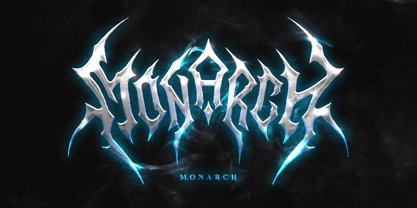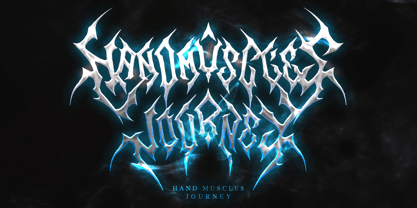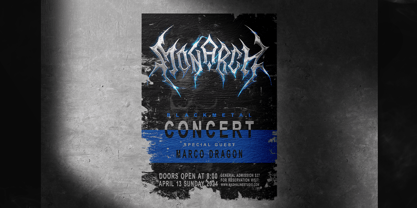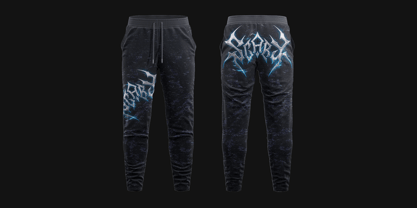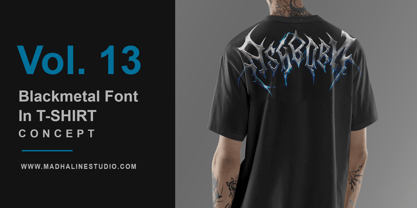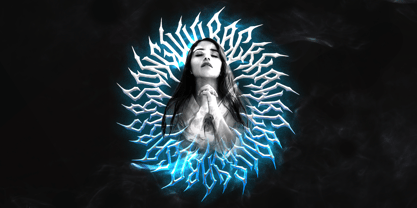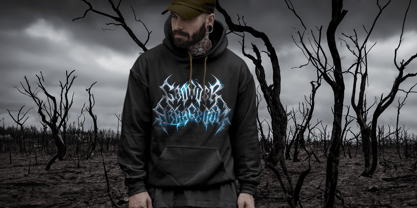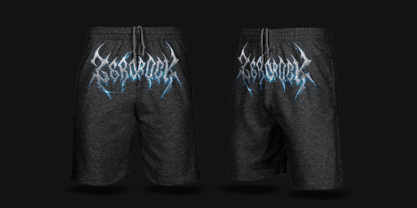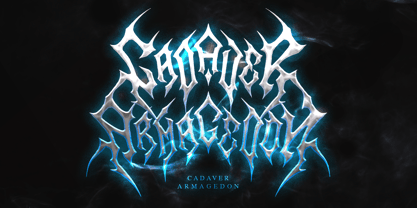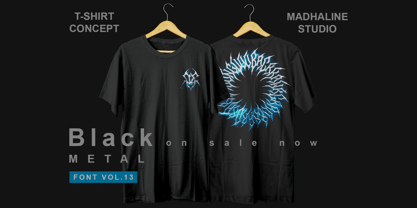
Ashborn Black Metal
by Madhaline Studio
The Ashborn Black Metal Font Family was designed by Achmad Hanif Ulinuha and published by Madhaline Studio. Ashborn Black Metal contains 1 styles. More about this family
Ashborn is a blackmetal font that has a realistic blackmetal logo feel. This font is rich in variations, inspired by blackmetal band logos.
This font combines a symmetrical left-right flip style for each character and the letters are connected to each other with a sticky liquid effect, giving the impression of horror, cool and frightening.
The Ashborn font is suitable for band logos, merchandise, apparel, song titles, game titles, and film titles.
Designers: Achmad Hanif Ulinuha
Foundry: Madhaline Studio